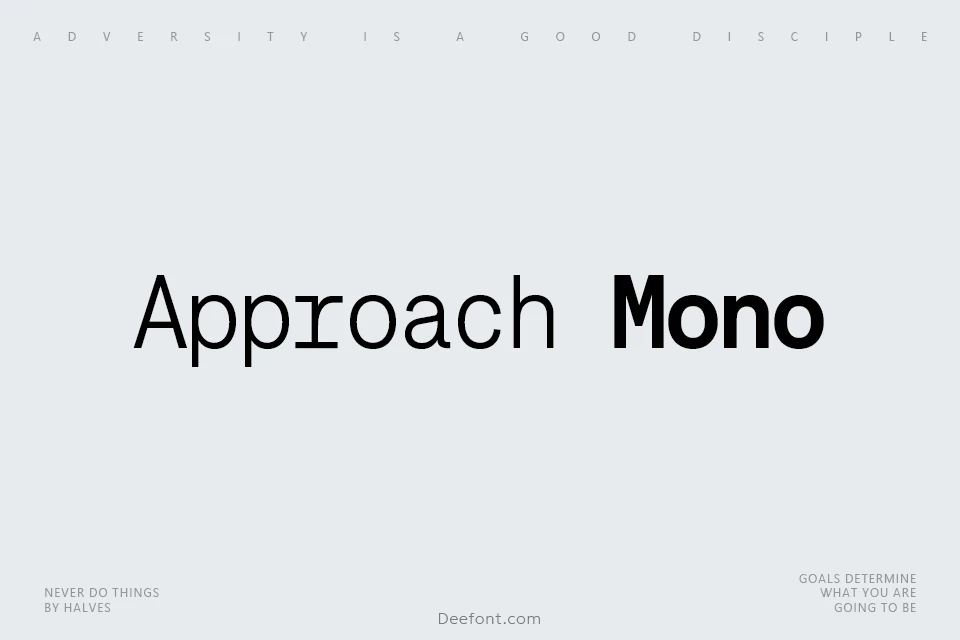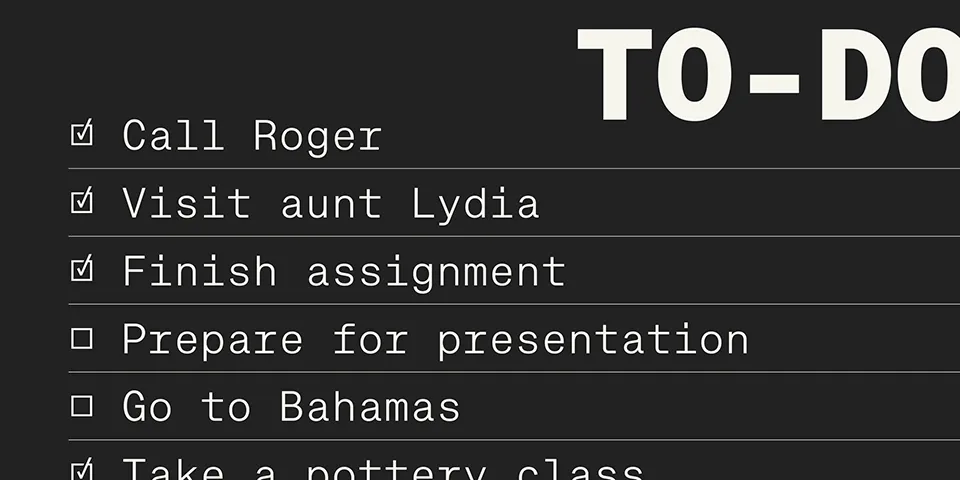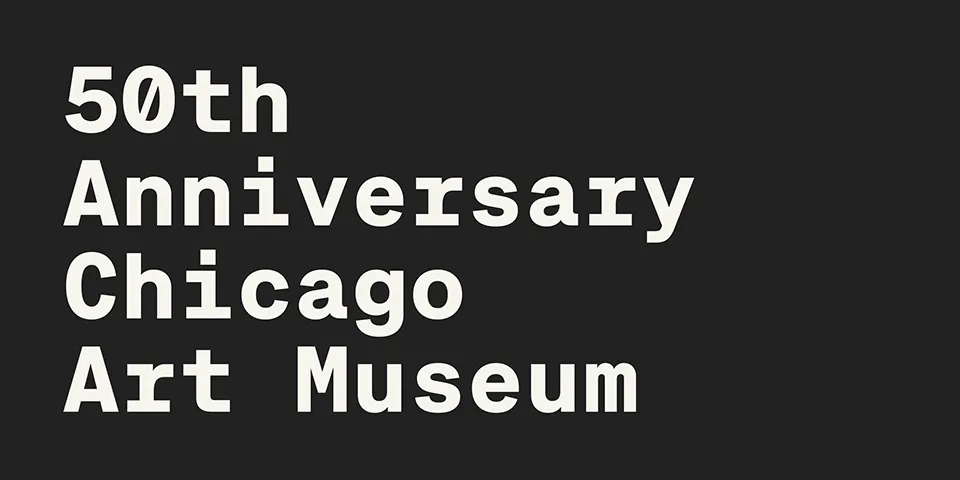
Approach Mono Font Family
Approach Mono Font Family is a technical, monospaced sans-serif typeface with a utilitarian, low-contrast design. While slightly mechanical in appearance, it offers plenty of character and clarity. This fixed-width version of Approach features more prominent and visible punctuation, making it ideal for tables, programming code, or “in progress” texts. However, its versatility also makes it suitable for modern communication, including brochures, advertising, and brand identities, where a clean and aseptic voice is desired.Approach Mono Font Family brings a fresh yet familiar feel to any project, combining functionality with distinct personality.